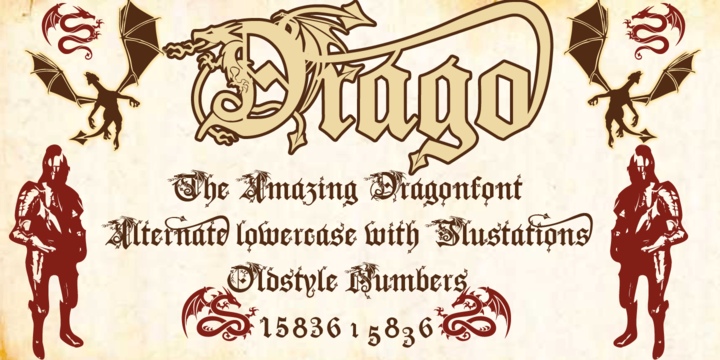
Drago Font
Drago Font excels in fantasy gaming branding, medieval festival promotions, dragon-themed entertainment venues, epic fantasy novel covers, mystical board game packaging, legendary adventure campaigns, mythical creature exhibitions, medieval history museums, fantasy role-playing materials, and epic storytelling workshop displays. This powerful typeface brings legendary strength and mythical grandeur to any fantasy-focused design project.
Drago Font is exciting because it embodies the awe-inspiring power and ancient wisdom of legendary dragons, featuring bold, commanding letterforms that seem to breathe with the same fierce energy and majestic presence that has made dragons the ultimate symbol of power, mystery, and magical authority throughout human mythology. Its legendary character instantly conveys epic scale, mythical strength, and the timeless fascination with these magnificent creatures of legend.
Drago Font family includes Regular, Bold, and Heavy weights with mythical alternates, dragon-inspired flourishes, legendary ornamental elements, and fantasy symbols that enhance the epic aesthetic, providing fantasy designers with powerful tools for creating typography that captures the legendary spirit and mythical grandeur of dragon lore and fantasy storytelling traditions.
Drago Font Free Download offers fantasy entertainment professionals access to one of the most authentically powerful typefaces available for dragon-themed design applications. This exceptional font has gained recognition among gaming companies, fantasy publishers, and entertainment venues for its ability to communicate legendary power and mythical authority through typography that embodies the awe-inspiring presence of dragons in fantasy culture.
Fantasy entertainment designers love Drago Font for its exceptional ability to convey epic power and legendary mystique through dramatically crafted letterforms. The font's commanding character and dragon-inspired details create immediate associations with epic quests, magical realms, and the timeless stories that celebrate the eternal struggle between heroes and the magnificent, terrible beauty of dragon encounters.
The design philosophy behind Drago Font celebrates the enduring human fascination with dragons as symbols of ultimate power, ancient wisdom, and the untamed forces of nature that challenge heroes to discover their true strength, making it particularly effective for gaming companies, fantasy entertainment, and storytelling organizations that create epic adventures. Creative teams working on fantasy projects find this font essential for evoking legendary atmosphere.
Whether used for fantasy gaming experiences, dragon-themed entertainment venues, or epic storytelling projects, Drago Font delivers the perfect combination of legendary power and mythical authenticity. Its epic appeal and dragon mystique make it an indispensable choice for entertainment brands that celebrate fantasy adventure, create legendary experiences, and honor the magnificent tradition of dragon lore in human mythology and storytelling.